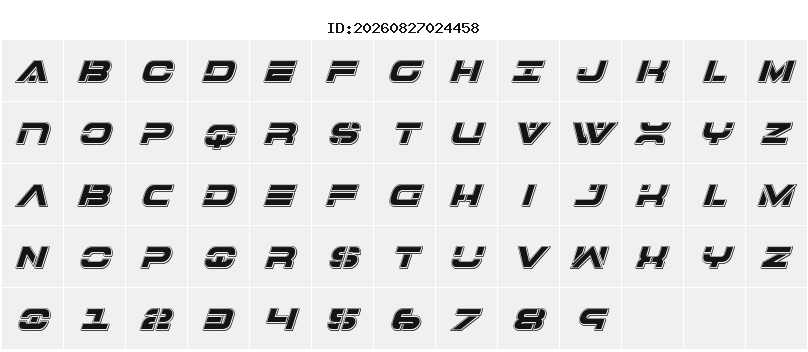
About 7th Service Punch Italic.ttf
7th Service Punch Italic.ttf is a modern, elegant sans-serif font designed for ultimate readability and visual harmony. Perfect for branding, headlines, web design, and print materials.